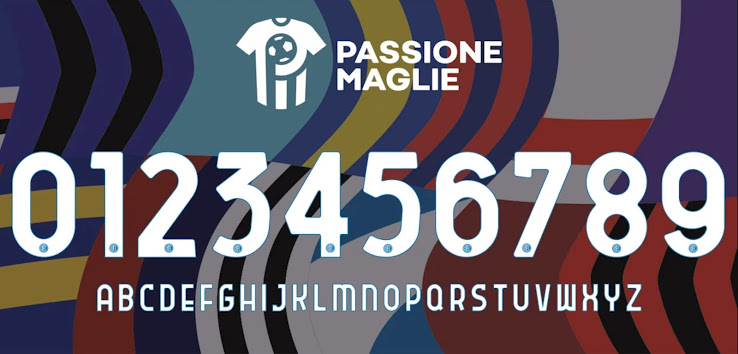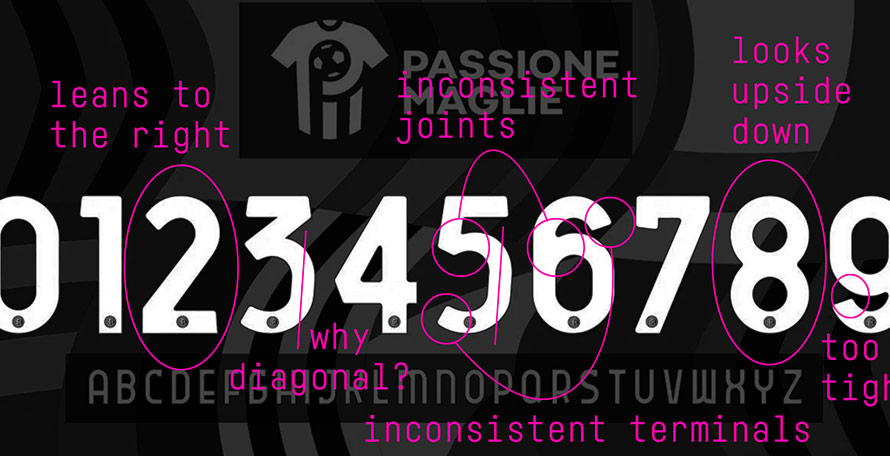
Font Expert: Here's Why the New Serie A Font is Bad
With the recent release of the Roma 20-21 home kit we finally got confirmation of the new league-wide font for Serie A.
But whether you like the idea of a one-for-all font - four out of five European top leagues have now one, with only the Bundesliga still allowing teams to have their own designs - there's no doubt that this one is not the best out there.
It's no secret that we at Footy Headlines are absolutely no fans of it. But if has to be done it should be done right. We believe that a league font should always try to reduce any sort of quirks or unusual design choices to a minimum, in order to not influence the appearance of shirts too much.
It might not be as bad as La Liga's with its overdone outline, but the new Serie A font has a number of issues. And they go beyond weird letter and number shapes, as a recent Tweet by font designer and expert @sportsfonts_com shows:
As highlighted, there's a lot of inconsistency with the new design, and that's only looking at the numerals.
- Some of them are titled to the right, such as the 2, 3 and 5, while the others aren't.
- Legibility could have been improved a lot by making sure that the shapes are not too closely aligned, as can be observed with the 6 and 9.
- Finally, the 8 'looks upside down'.